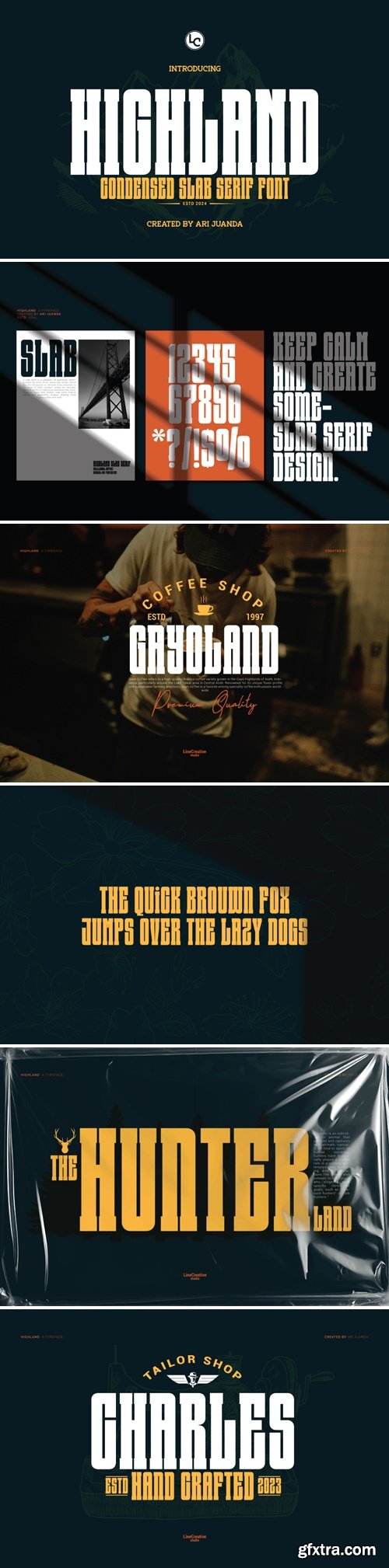
Highland is a condensed slab serif font suitable for art, modern envelope lettering or book design, trending styles like hand drawn design or watercolor design theme, craft design, any DIY project, book title, wedding font, vintage pop design, or any purpose to make our art/design project look beautiful and trendy.
Klase Cyberpunk Font with a handmade Cyberpunk Font style, decorative characters and a dancing baseline! Klase Cyberpunk Font come with 250+ glyphs. The alternative characters were divided into several Open Type features such as Swash, Stylistic Sets, Stylistic Alternates, and Ligature. The Open Type features can be accessed by using Open Type savvy programs such as Adobe Illustrator, Adobe InDesign, Adobe Photoshop Corel Draw X version, And Microsoft Word. And this Font has given PUA unicode (specially coded fonts). so that all the alternate characters can easily be accessed in full by a craftsman or designer.
Wave Block is a raw and energetic typeface, crafted with realistic brush strokes that add a gritty, hand-painted look to your designs. Each letter is infused with texture and bold movement, featuring uppercase, lowercase, numerals, and essential ligatures for versatile styling. Perfect for projects like logos, posters, apparel, album covers, or packaging, Waveblock Brush brings a true urban vibe with an organic, hand-crafted feel. This font is designed to add dynamic personality and authenticity to any work, giving it a street-smart, powerful edge.
Introducing Mushafa, a stunning font that captures the beauty of Arabic calligraphy with touch of elegant and modern. Inspired by the intricate art of arabic writing, this font features graceful curves, delicate flourishes, and smooth slow. Included with alternates, it added cultural richness to the font. Mushafa comes in two styles: regular and outline. The multilingual support makes this font suitable for global use. Perfect for logos, invitations, social media graphics, posters, editorial design, product tags, and any design project that needs an Arabic or Islamic touch.